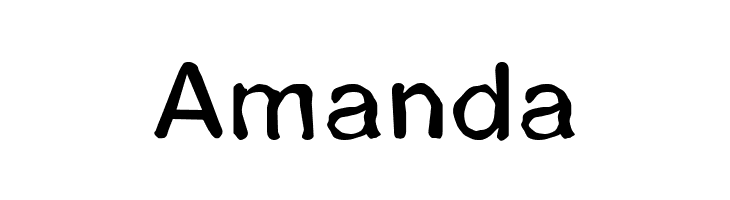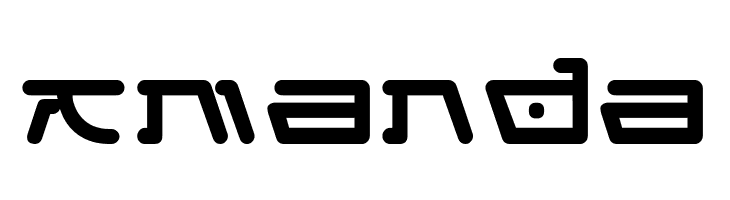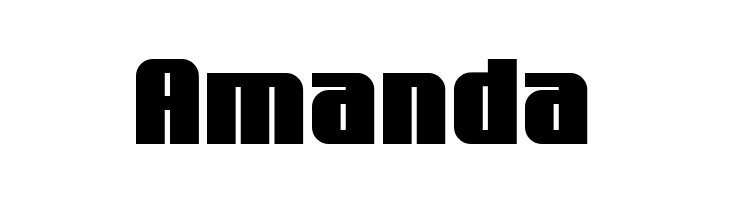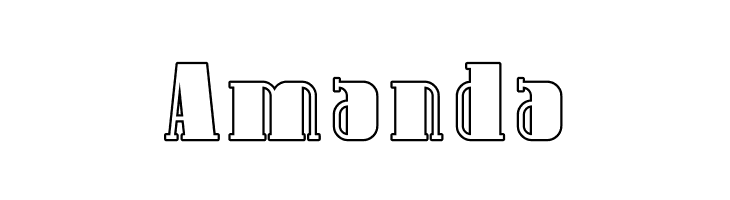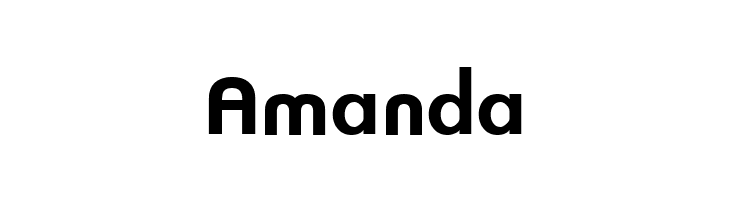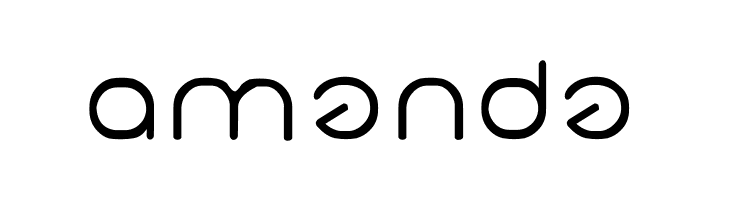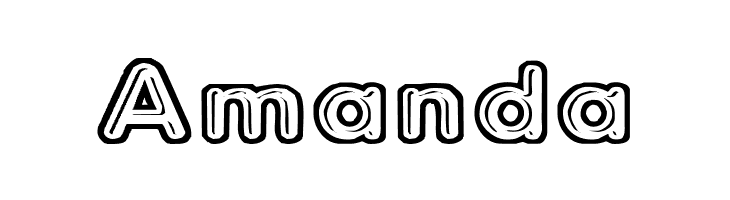
An elegant serif font with classic curves and sharp serifs, offering a timeless and sophisticated look.
A modern, condensed font with tall, narrow characters and a sleek appearance.
( Fonts by Matthew Austin Petty - www.disturbed.com )
A modern, decorative font with geometric shapes and playful curves.
A modern, geometric outline font with an italic slant, ideal for futuristic designs.
A classic serif font with elegant proportions and balanced stroke contrast.
( Font by Gary D. Jessey )
A bold, brush-style font with dynamic, hand-painted strokes.
A bold, italicized blackletter font with a medieval aesthetic.
( Fonts by Dennis Ludlow - Sharkshock Productions )
A bold, playful font with thick strokes and whimsical curves.
( Fonts by Antonio Bucu - AdamAnt Designs )
A bold, high-contrast font with thick, block-like characters.
A bold, outlined font with a strong, dimensional presence.
( Fonts by AEnigma - www.aenigmafonts.com )
A bold, medieval-inspired font with sharp, angular characters and a historical aesthetic.
A futuristic, bold font with rounded, geometric letterforms and smooth curves.
A bold, 3D block-style font with a tilted, dynamic appearance.
A playful, hand-drawn outline font with tall, narrow characters.
A bold, playful font with a double outline and rounded characters.
( Fonts by Levi Halmos )
A bold slab serif font with a modern and structured design.